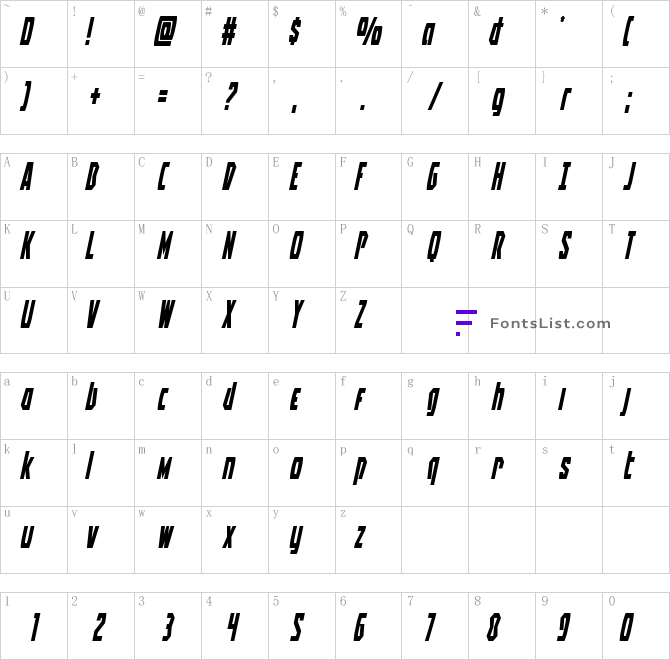
- Font Name:Battleworld Title Italic
Battleworld-Title-Italic.ttf is a very beautiful artistic font, Battleworld-Title-Italic.ttf is widely used in the design and printing of various books and pictures,Battleworld-Title-Italic.ttf has a strong visual impact,Battleworld-Title-Italic.ttf is a commonly used font in newspapers, magazines and books, and is used in posters, e-commerce Poster design, store design, logo design, font design and other fields.Battleworld-Title-Italic.